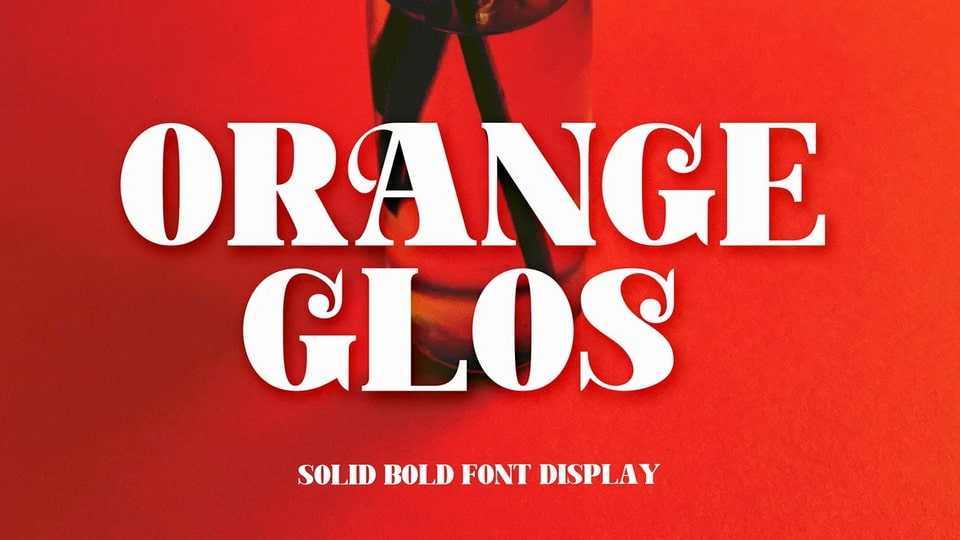
Download Orange Glos font, a bold classic serif typeface with more hand-illustrated alternatives, and preserved textures, for a unique, yet modern vintage feel. This versatile display typeface has enough character for logos and branding, as well as headlines, apparel, bridal and more.